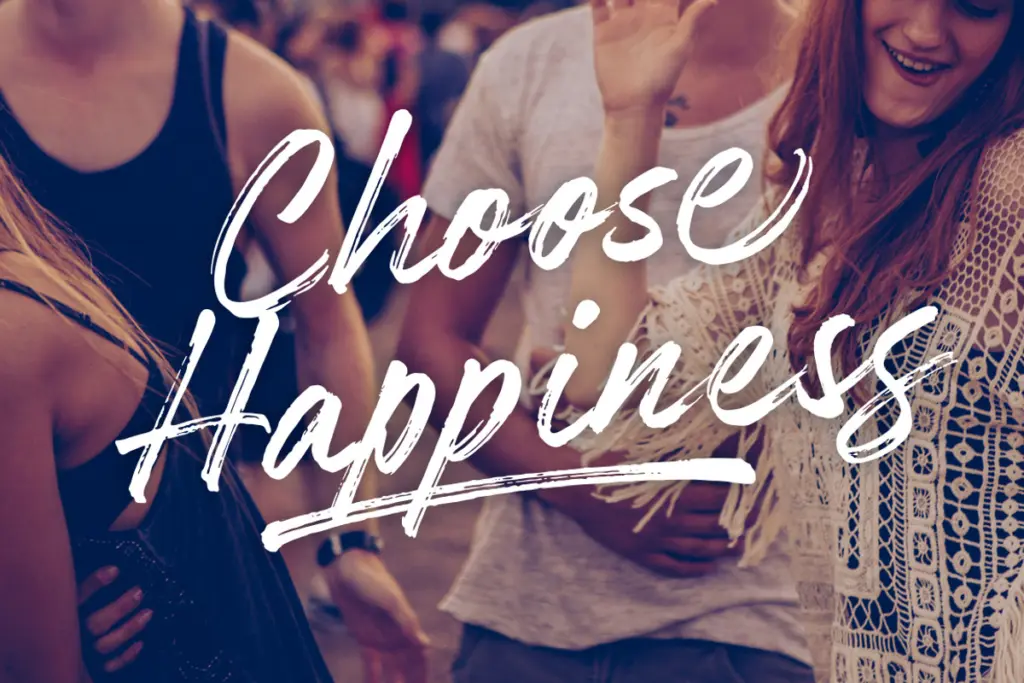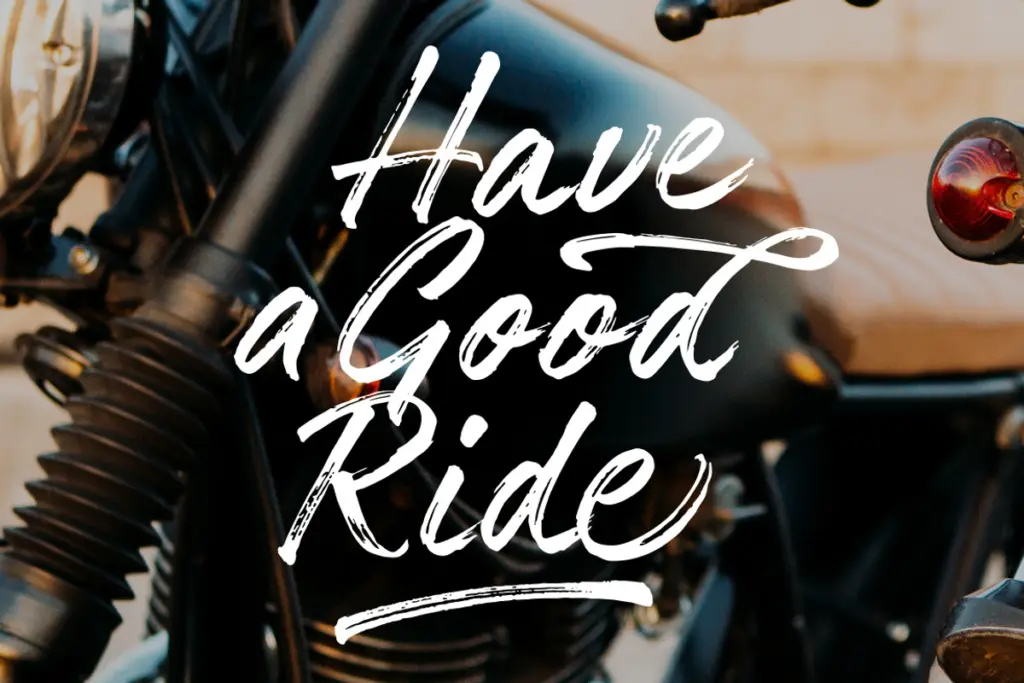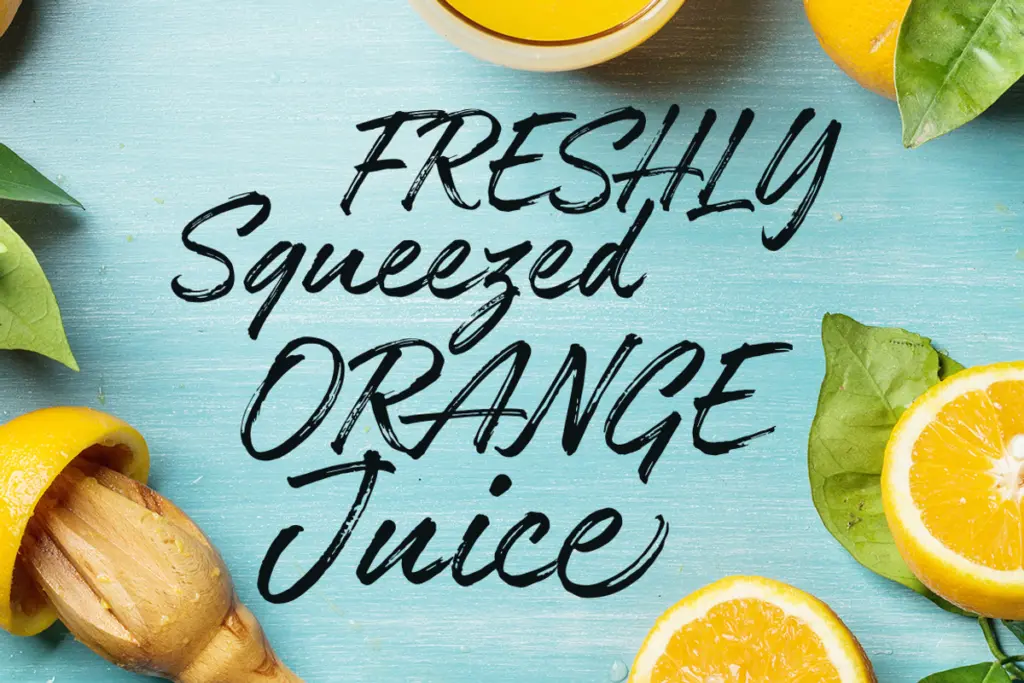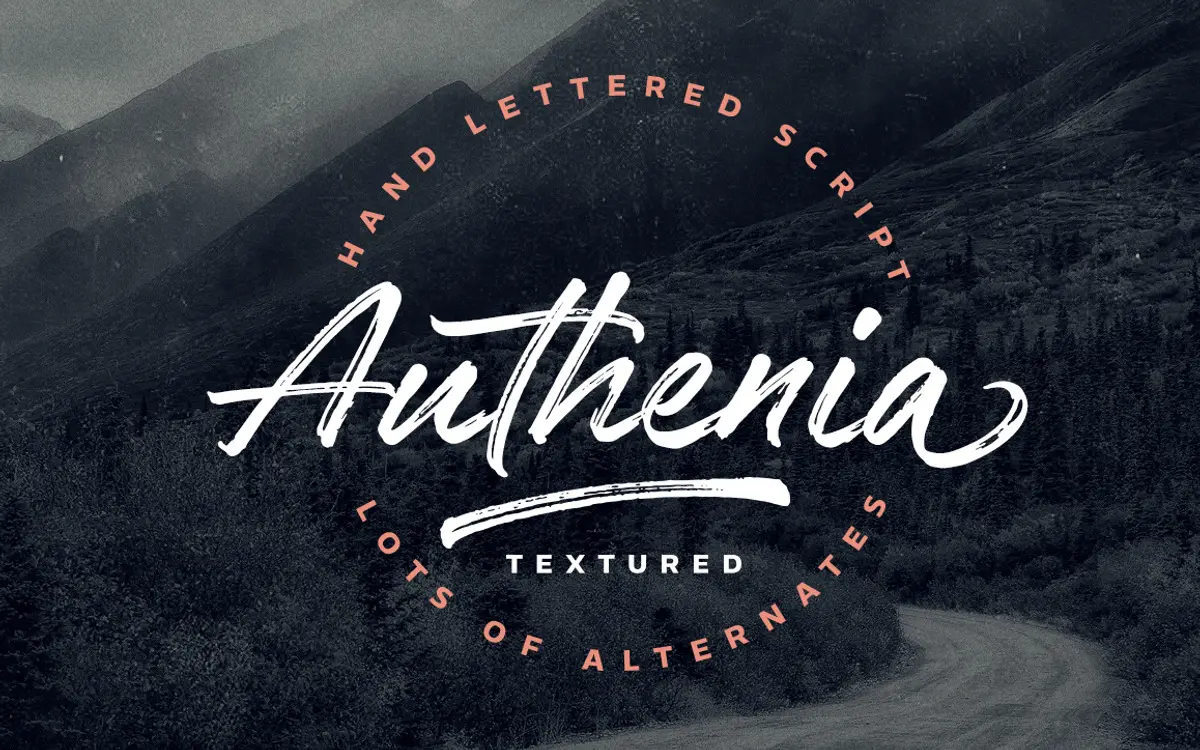
Authenia Textured is a brush script built from actual brush-pen strokes on paper, then vectorised rather than smoothed into a clean digital shape. That process shows. The strokes carry visible texture — the broken, dry-bristle marks you get when a brush is running low on ink — and the letters lean forward at a casual, unforced angle rather than the deliberate slant of a formal calligraphic script. This is not a wedding-invitation script polished to a high gloss. It reads as handwritten in the literal sense: quick, slightly uneven, with weight that varies stroke to stroke rather than following a strict contrast rule.
The texture is the whole point here, and also the thing to weigh carefully. It gives the face a rustic, worn-in quality that a solid script can’t fake, but it also means the letterforms carry more visual noise. At small sizes that noise competes with the shapes themselves. This is a font for making a mark, not for setting a paragraph.
Authenia ships with two complete sets of lowercase letters, which is the feature worth understanding before anything else. Rather than one glyph per letter, you get two variants of most lowercase characters, and turning on Contextual Alternates lets the software swap between them as you type. The effect is a text block where repeated letters don’t look identical — a common workaround for the biggest tell of digital script fonts, the repeated-letter problem, where the same ‘a’ or ‘s’ shows up three times in a row and breaks the handwritten illusion.
Beyond the alternate lowercase, there are stylistic alternates for individual letterforms and a set of underline swashes that can tie into word endings, useful for logotypes or short lockups where you want a flourish that looks connected rather than bolted on. All of this depends on an OpenType-aware layout tool — Illustrator, InDesign, recent versions of most design apps — to access properly. Dropped into a tool without OpenType panels, you’ll only get the default glyph set with none of the variation, which flattens the font’s main advantage.
This is a display and lettering tool, not a body-copy typeface, and the textured finish narrows its use further than a clean script would. It suits packaging and label work where a rustic, handmade feel matters — craft goods, small-batch food and drink, anything trading on an artisanal story. Logotypes and wordmarks benefit from the alternates, since you can hand-pick letter combinations that avoid awkward repeats. Editorial pull quotes, event titling, and short headline treatments where a few words carry a lot of visual weight are also reasonable fits.
Where it struggles is anywhere the texture works against clarity: small print, dense signage, or any context where the design needs to read instantly rather than be admired. Pair it with a plain, quiet sans or serif for supporting text — the script should stay the loud element in the room, not compete with itself.
- Dual lowercase sets with contextual alternates genuinely vary repeated letters
- Visible dry-brush texture gives it an authentic handmade quality rare in digital scripts
- Underline swashes and stylistic alternates add flexibility for logotype work
- Texture adds visual noise that hurts legibility below display sizes
- OpenType features require a capable layout tool, or you lose the font's main advantage
Authenia Textured commits fully to its dry-brush aesthetic, and the dual lowercase sets with contextual alternates do real work solving the repeated-letter problem common to script fonts. It's a strong pick for rustic branding and short lettering treatments, but the texture that gives it character also limits it to display sizes and specific moods.